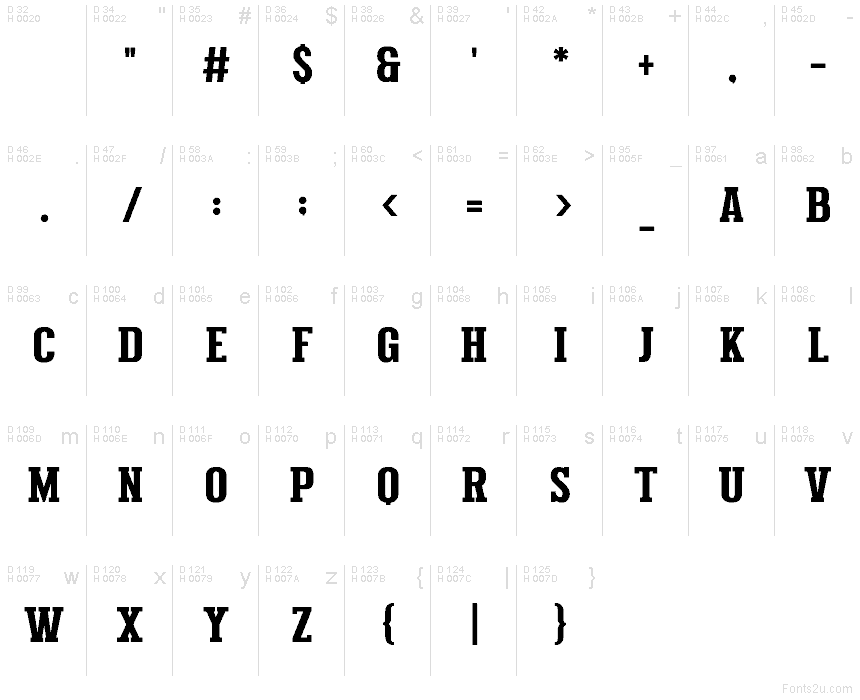
Varsity Signature Slab Serif
Varsity Signature Slab Serif by Blankids is a free bold old-school slab serif display font. Built in the Varsity Signature family, it leans into tall, condensed caps with brick-solid slabs and even strokes, giving headlines that classic letterman-jacket punch. Tight spacing and square-cut details keep the rhythm snappy, so words lock together like a stitched patch on felt.
Using Varsity Signature Slab Serif, you’ll nail team logos, jersey numbers, sports posters, pep-rally banners, campus merch, ticket stubs, and scoreboard graphics. This free font shines when set big; add a touch of tracking for breath, and pair with a clean geometric sans for stats, captions, or body copy.